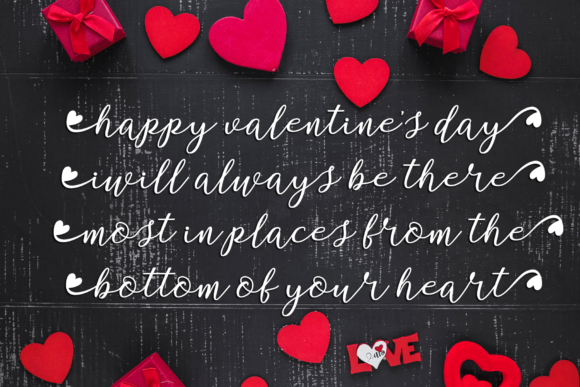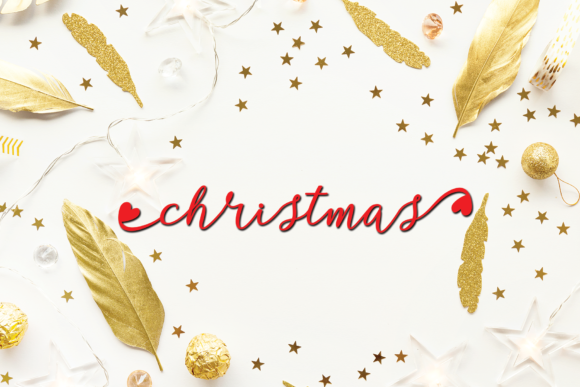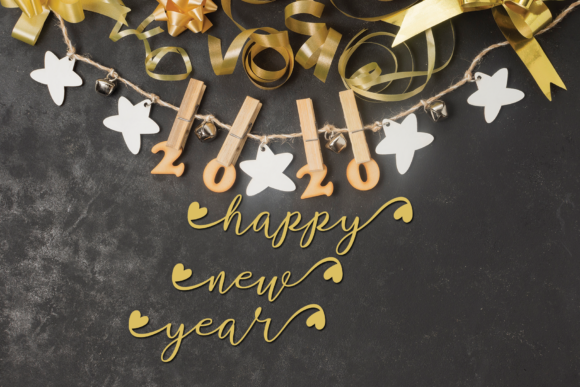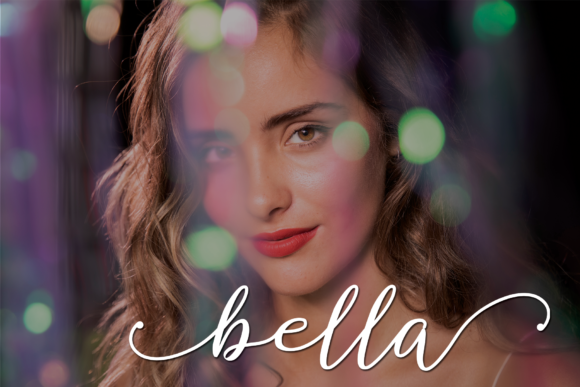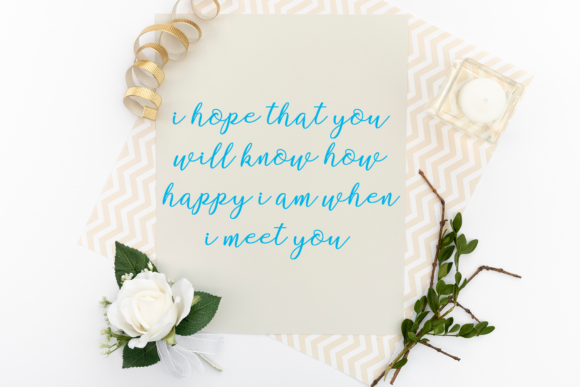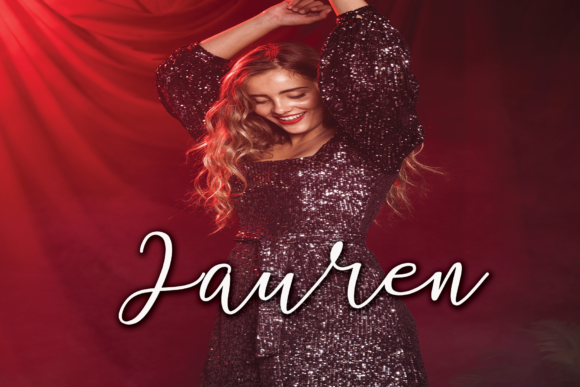
Unleash the Art of Elegant Typography
Have you ever been inspired by a beautiful handwritten note or a classic book from the past? For many designers, it’s those moments that spark creativity and remind us of the power of elegant typography. One such font that pays homage to the art of classic calligraphy is the Arabella Font. This stunning font is a modern interpretation of traditional calligraphy, blending timelessness with a touch of sophistication.
With the Arabella Font, designers can add a touch of elegance to their projects, from wedding invitations to luxury branding. Its versatility makes it an invaluable asset for creatives looking to elevate their designs. Whether you’re a seasoned designer or just starting out, the Arabella Font is sure to become a trusted companion in your quest for typographic perfection.
Arabella Font Key Features
- Font Family: Arabella, Arabella Italic, Arabella Bold, Arabella Bold Italic
- Size: 1,024 glyphs
- Resolution: Supports up to 2048 x 2048 DPI
- Unique Characteristics: Elegant, sophisticated design; suitable for formal and professional settings; includes a wide range of language support
Arabella Font Review
As a designer, I had the opportunity to work with the Arabella font, and I must say it’s a delightful addition to any typography project. ✨ The elegant curves and refined lines give it a sophisticated feel that’s perfect for high-end branding and editorial designs.
The Arabella font is incredibly versatile and can be used for a wide range of applications, from headlines to body text. ✨ Its legibility is top-notch, making it an excellent choice for long-form content. I also appreciate the font’s subtlety, as it doesn’t scream for attention but still manages to convey a sense of luxury.
- ⚠️ Limited character set: While the font is beautifully crafted, its character set is relatively small compared to other fonts in its class. This may limit its use in certain languages or applications.
- ⚠️ Limited weight options: Arabella font only comes in a few weights, which may not be ideal for designers who need to create complex typography hierarchies.
- ⚠️ Not suitable for display use: While Arabella font is perfect for body text, it may not be the best choice for display use, such as titles or headings in a bold or italic style.
Overall, Arabella font is a solid choice for designers who want a sophisticated and elegant typeface. While it has some limitations, its beauty and versatility make it a great addition to any typography project. With some careful planning and consideration of the font’s limitations, designers can create stunning designs that showcase the Arabella font’s unique charm.
Tips for Getting the Most Out of Arabella Font
Use Arabella Font for formal and elegant designs, such as wedding invitations, business cards, and luxury branding.
Experiment with different font sizes and styles to create visual interest and hierarchy in your design.
Pair Arabella Font with a simple, clean background to let the font take center stage.